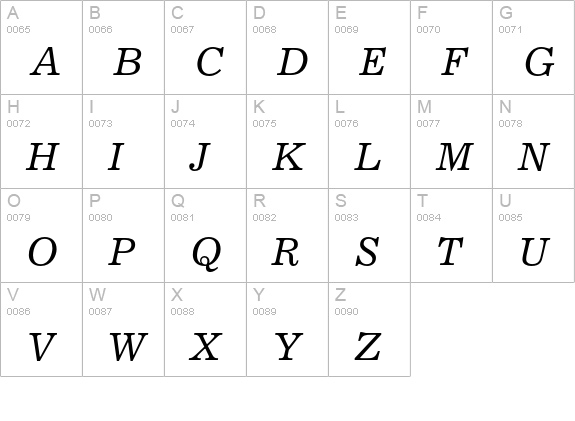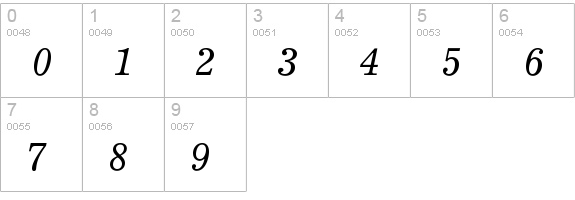
Excelsior Italic is a distinctive, italic variant in the Excelsior typeface family \xE2\x80\x94 well suited to design and typography projects.
Excelsior Italic font exudes elegance and sophistication with its sleek and stylish design. The italicized characters add a touch of flair and sophistication to any project, making it perfect for high-end branding, editorial design, and more. Its timeless appeal and refined look make it a versatile choice for various design purposes. What's even better is that Excelsior Italic font is available for free download at FontsMarket.com. This means that you can easily access this premium font without any cost, making it a valuable addition to your font library. Don't miss out on the opportunity to enhance your designs with the beauty and grace of Excelsior Italic font, now just a click away for free at FontsMarket.com!